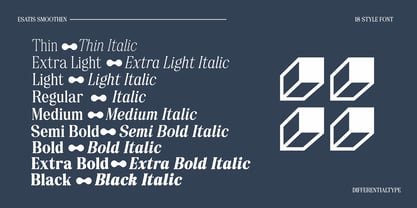
Esatis Smoothen
von Differentialtype
Die Schriftfamilie Esatis Smoothen wurde von Sidik Sidik entworfen und von Differentialtype veröffentlicht. Esatis Smoothen enthält 18 Stile und Familienpaketoptionen.
Esatis Smoothen is an elegant serif font with a unique retro and vintage style. With 18 different font styles, Esatis Smoothen offers wide flexibility for a variety of purposes, from casual typing to eye-catching displays. This font has a distinctive character, with fine details and balanced proportions, making it ideal for use in graphic design, publications, and even branding. With Esatis Smoothen, you can add a classic and nostalgic touch to your work, while still maintaining a modern and professional feel.
Designer: Sidik Sidik
Herausgeber: Differentialtype
Foundry: Differentialtype
Eigentümer des Designs: Differentialtype
Über Differentialtype
Differentialtype was founded in 2021. It is a new studio that specializes in font design, located in Indonesia, precisely in West Java. Differentialtype provides a variety of fonts for various needs, both personal needs and for your commercial needs at an affordable price. We will continue to update the fonts we have so don't forget to follow the updates.